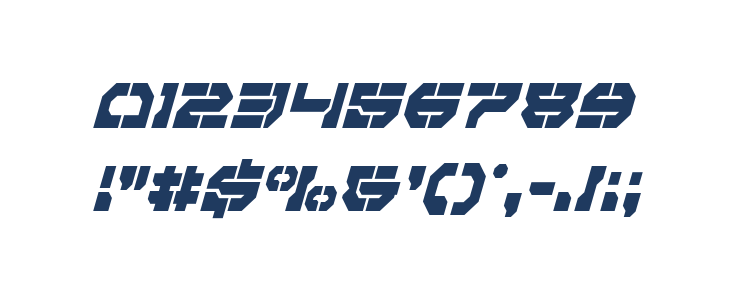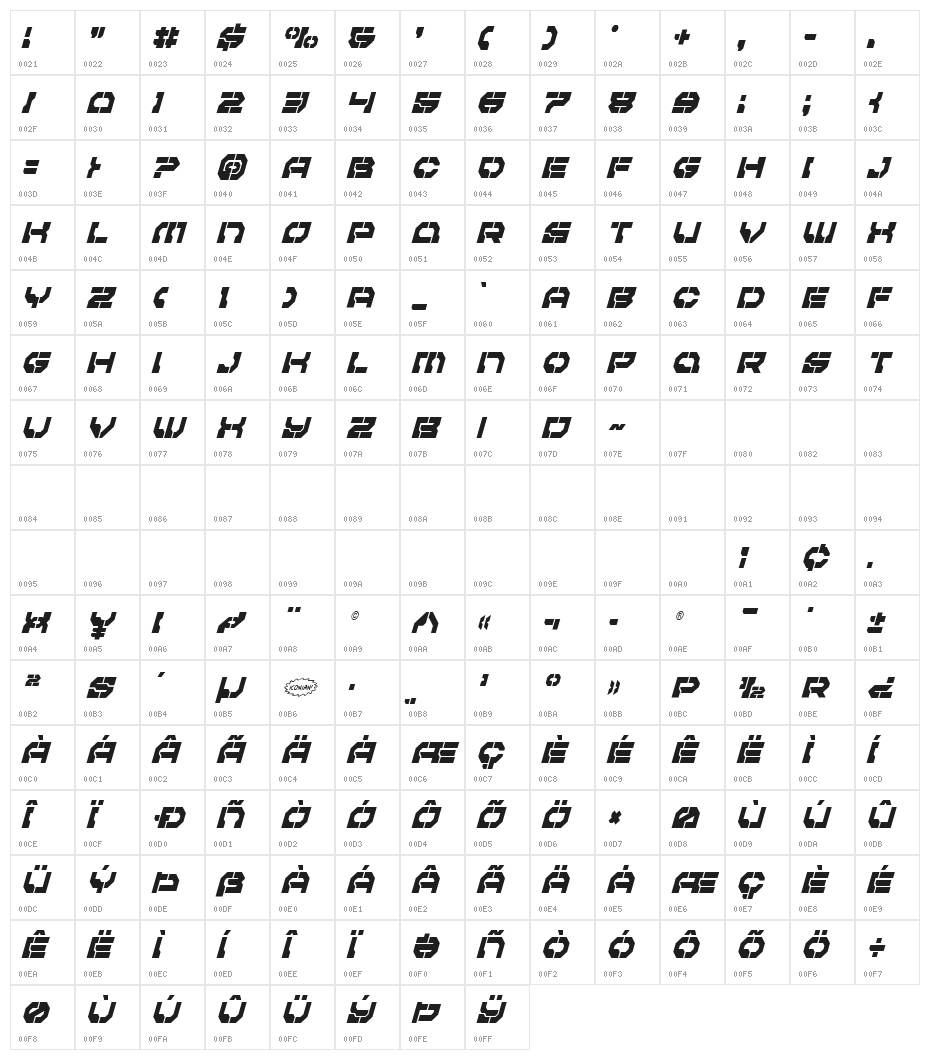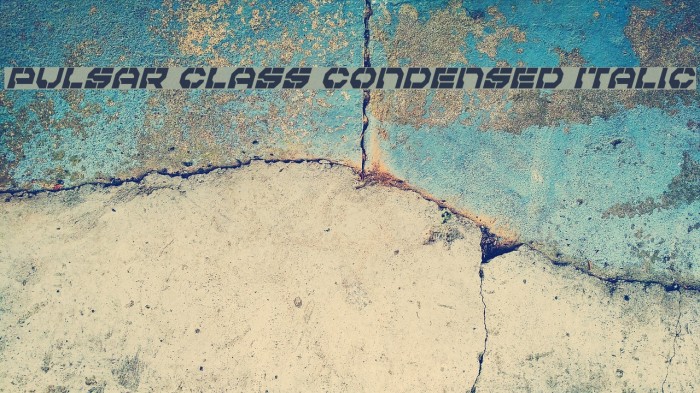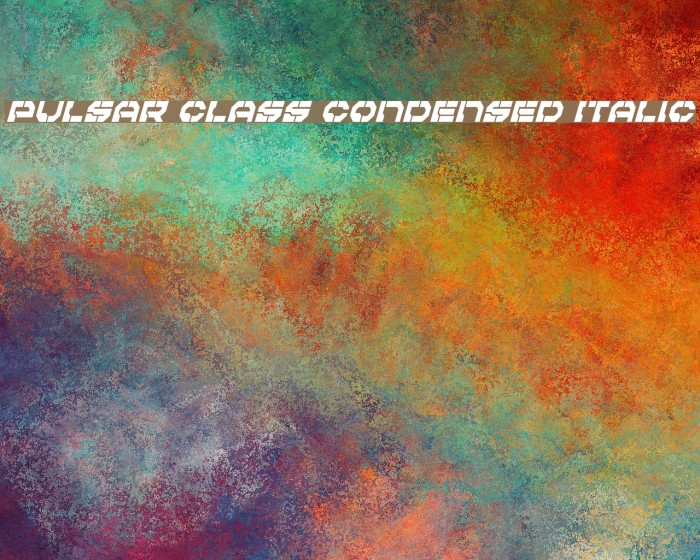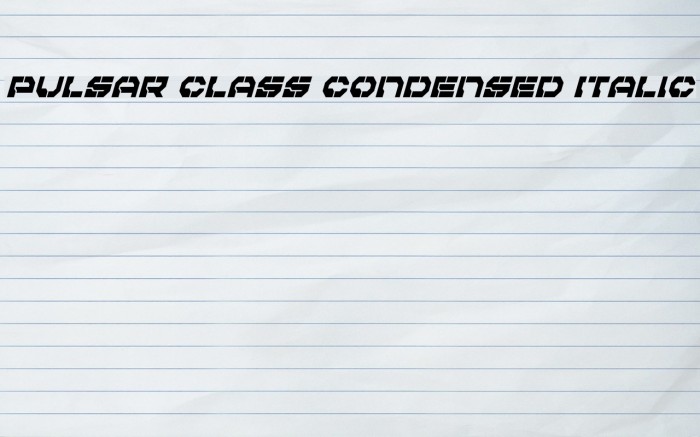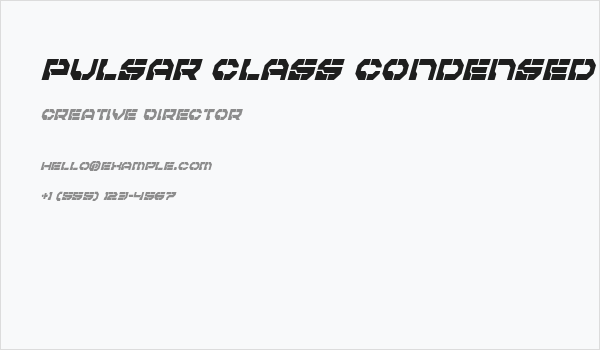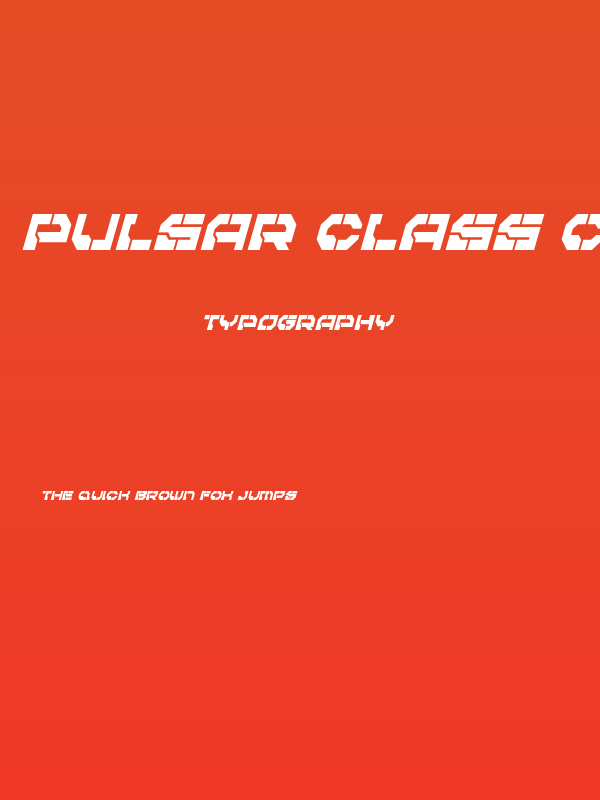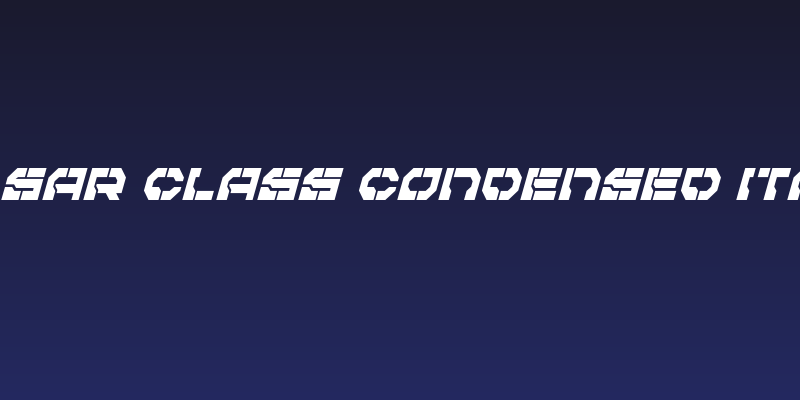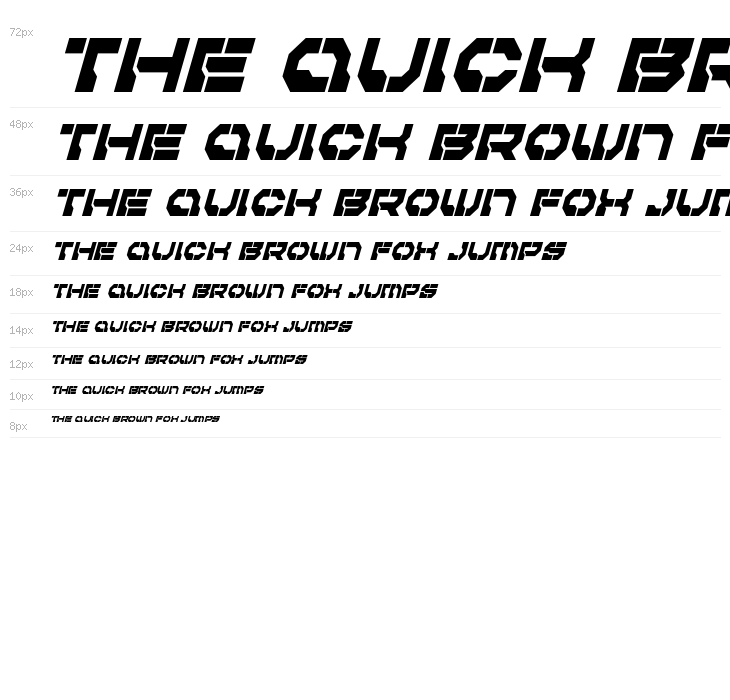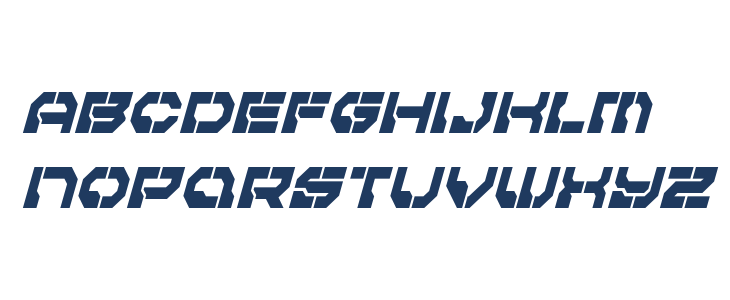
Pulsar Class Condensed Italic Font
Pulsar Class Condensed Italic Description
This font features a futuristic and angular design, characterized by its bold, geometric shapes and condensed form. The italic style adds a dynamic and forward-leaning appearance, enhancing its modern aesthetic. Each character is crafted with sharp edges and a consistent stroke width, creating a cohesive and striking visual impact. The font's unique style makes it ideal for projects that require a contemporary and edgy look. Its condensed nature allows for efficient use of space, making it suitable for headlines and titles where impact is essential.
| Proposed Projects | Ideal for sci-fi themed projects, tech branding, video game titles, and modern advertising. |